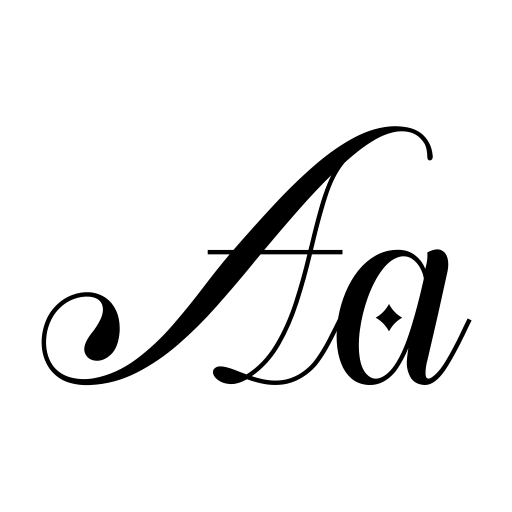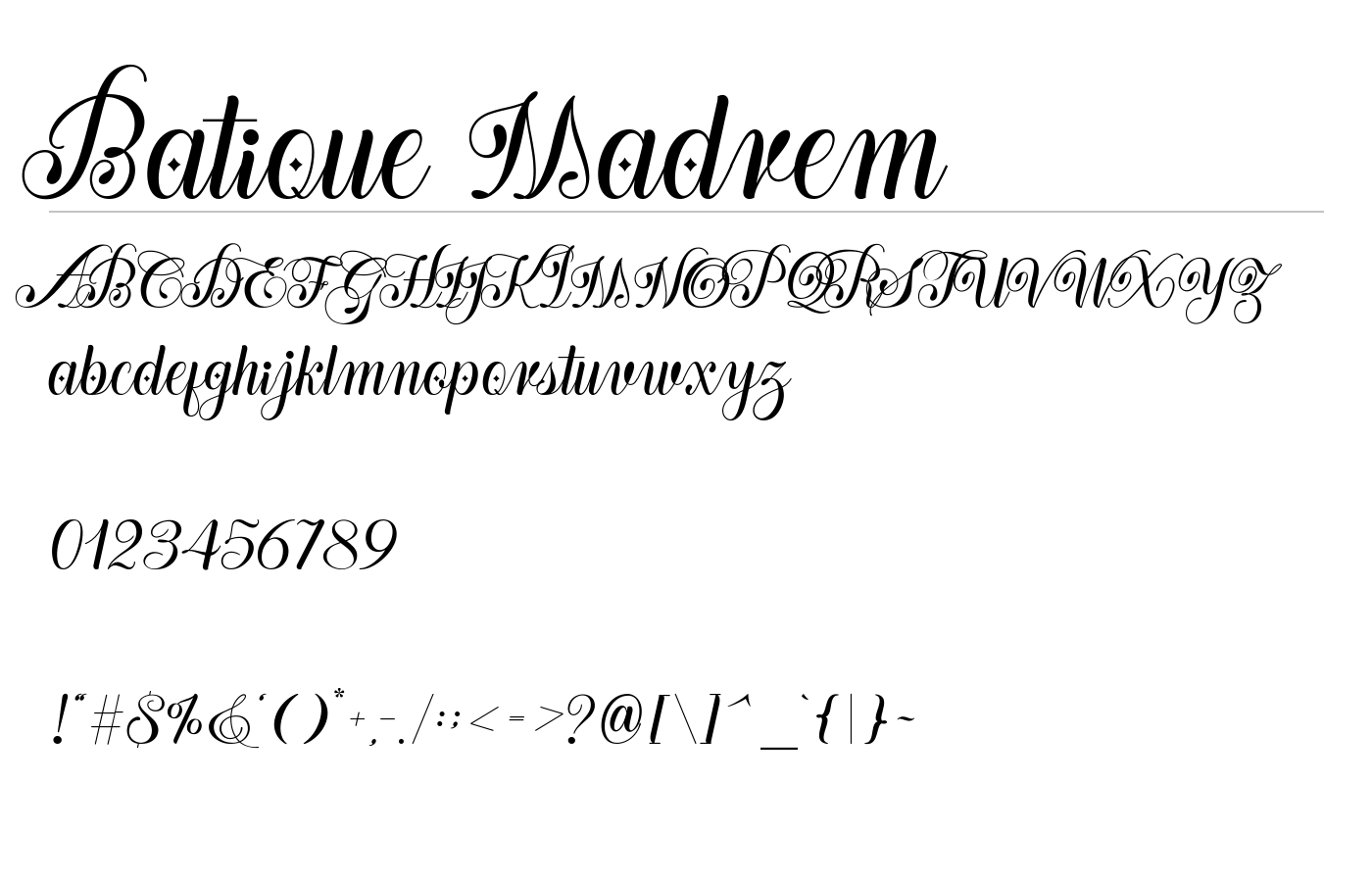
Batique Madrem is an elegant script font characterized by its intricate swashes, high contrast strokes, and flowing letterforms that embody a luxurious, vintage-inspired style. With its fine details and delicate curves, it is ideal for upscale branding, wedding invitations, and elegant headlines where a sophisticated and graceful impression is desired. This font works best in decorative uses that highlight its artistic flair while maintaining readability in larger sizes.
Batique Madrem Font
About Batique Madrem Font